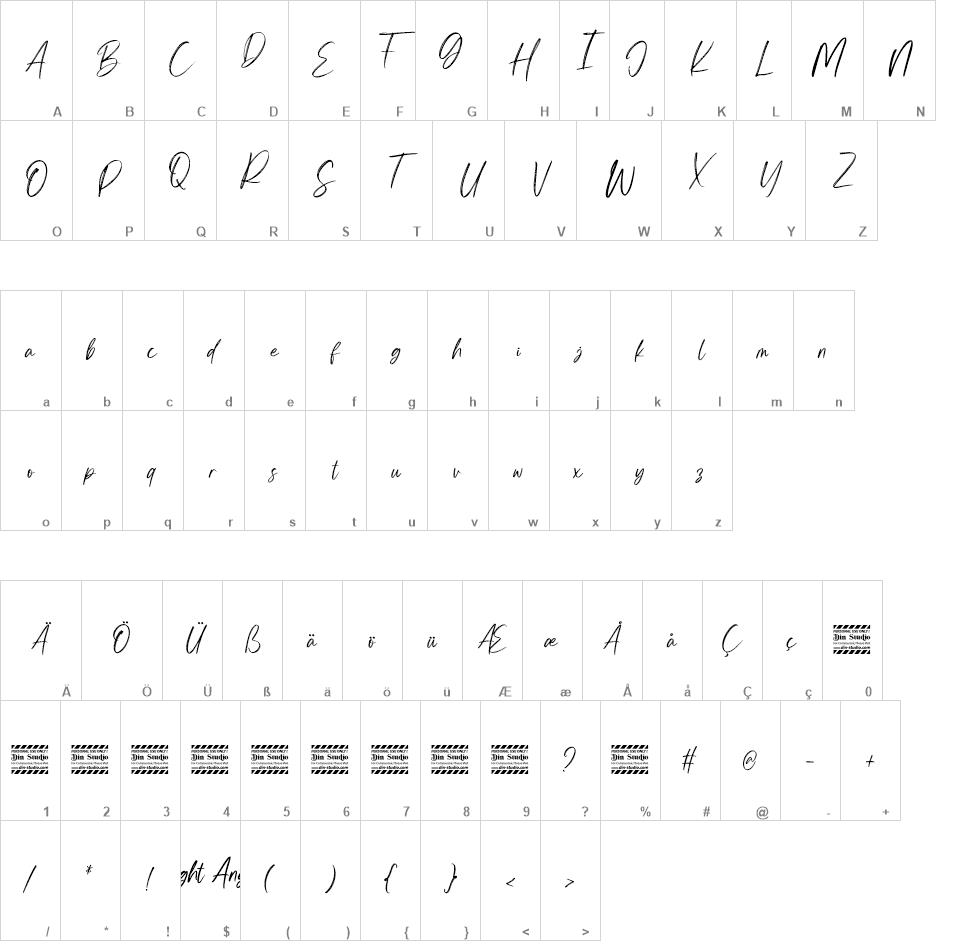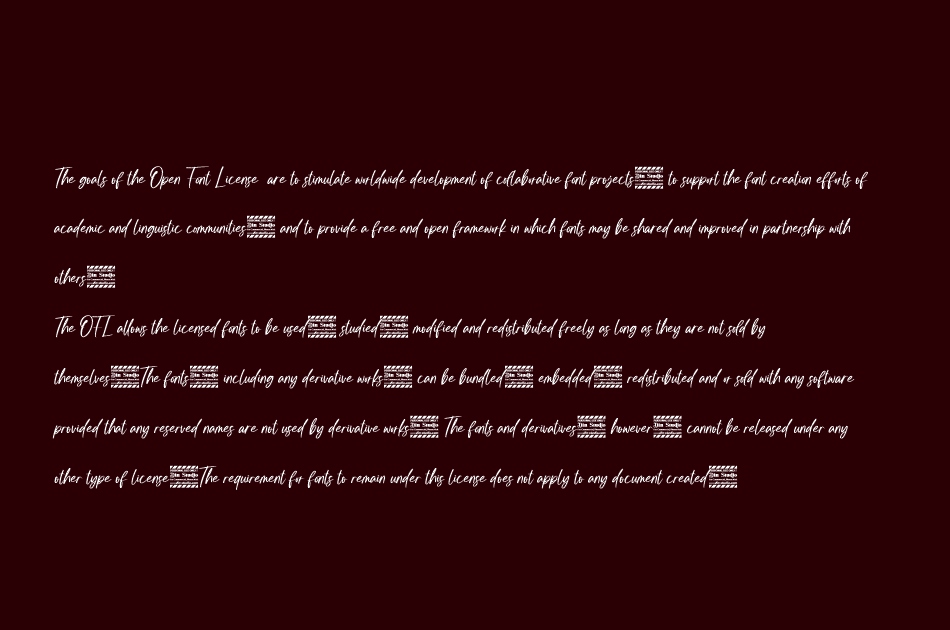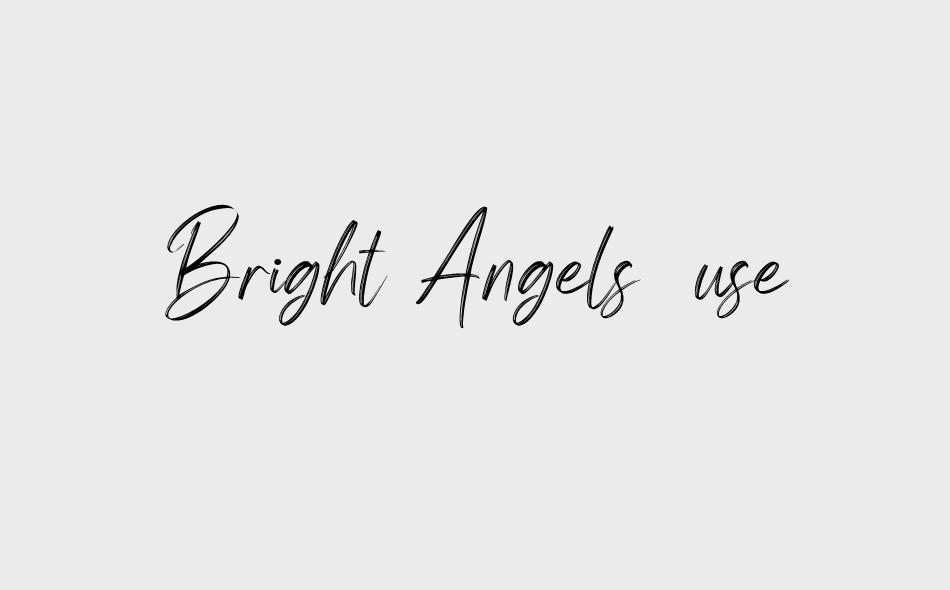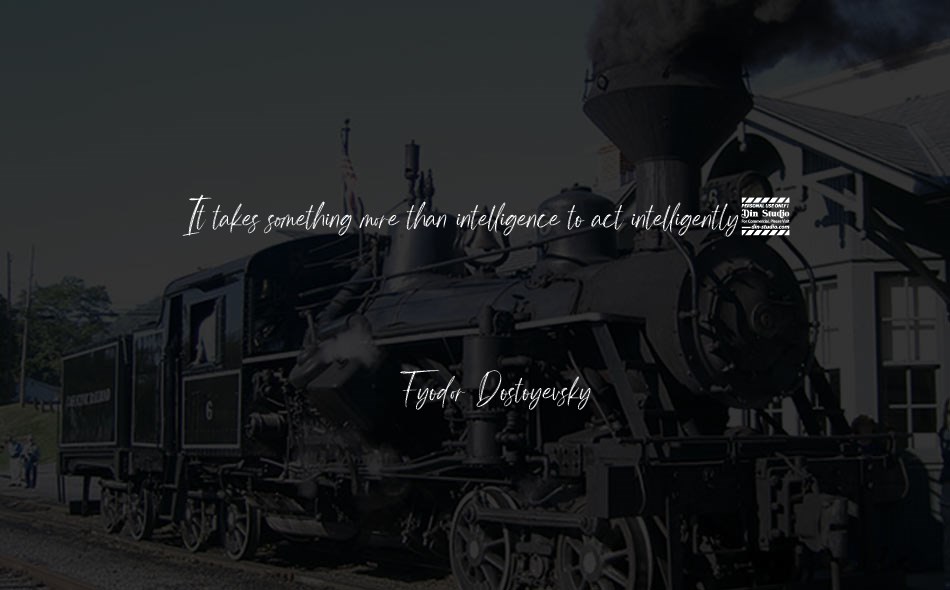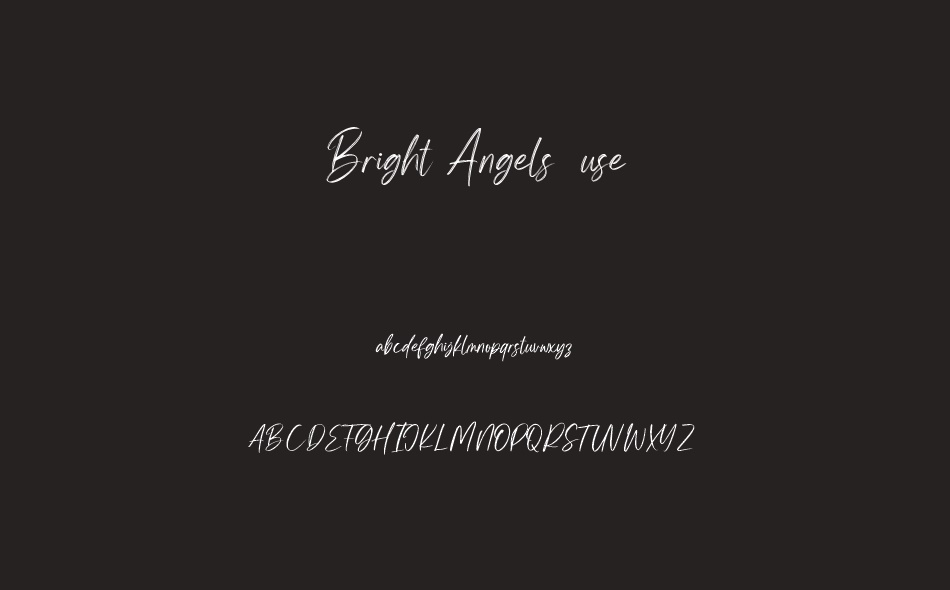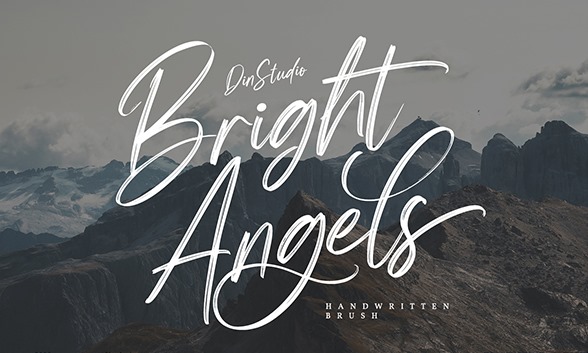
Bright Angels font
Introducing Bright Angels A Handwritten Font
This handcrafted typeface combined with brush style looks very elegant for loads of different projects and promotions. It is very suitable to be used on your website, for your social media branding, Pinterest banners, printed invitations, and more!